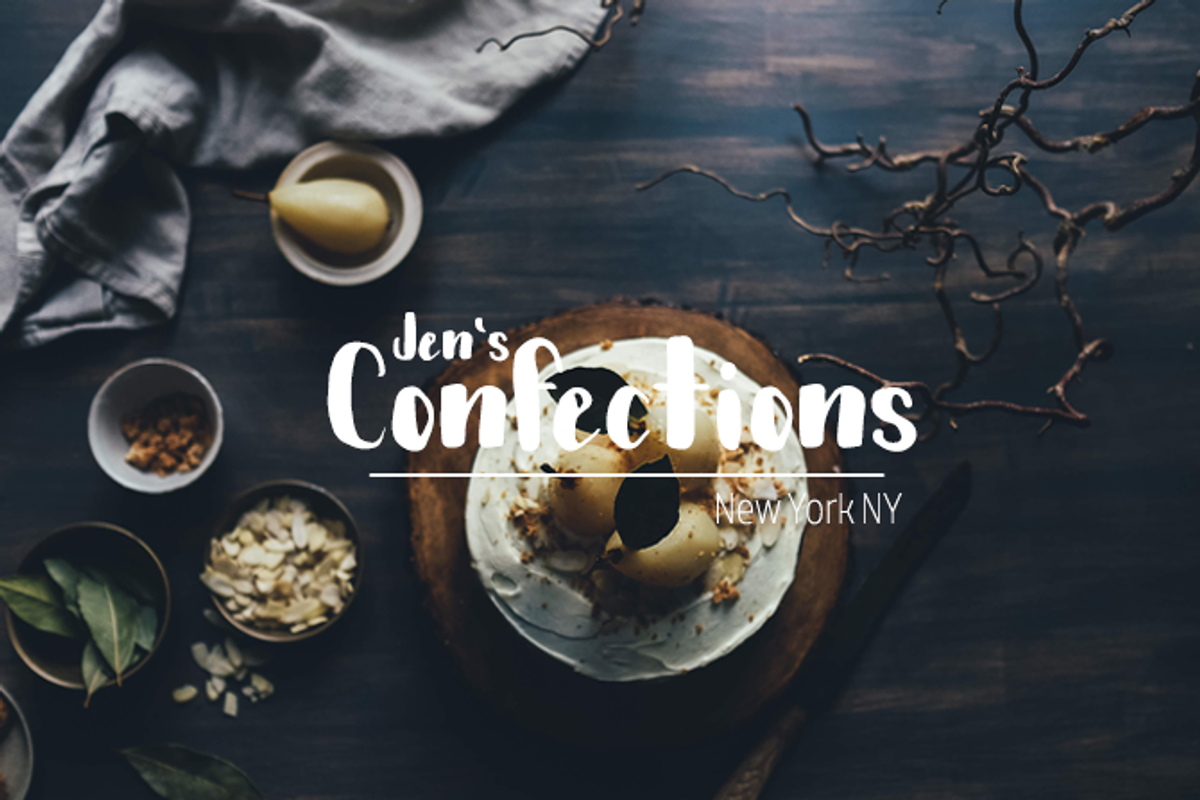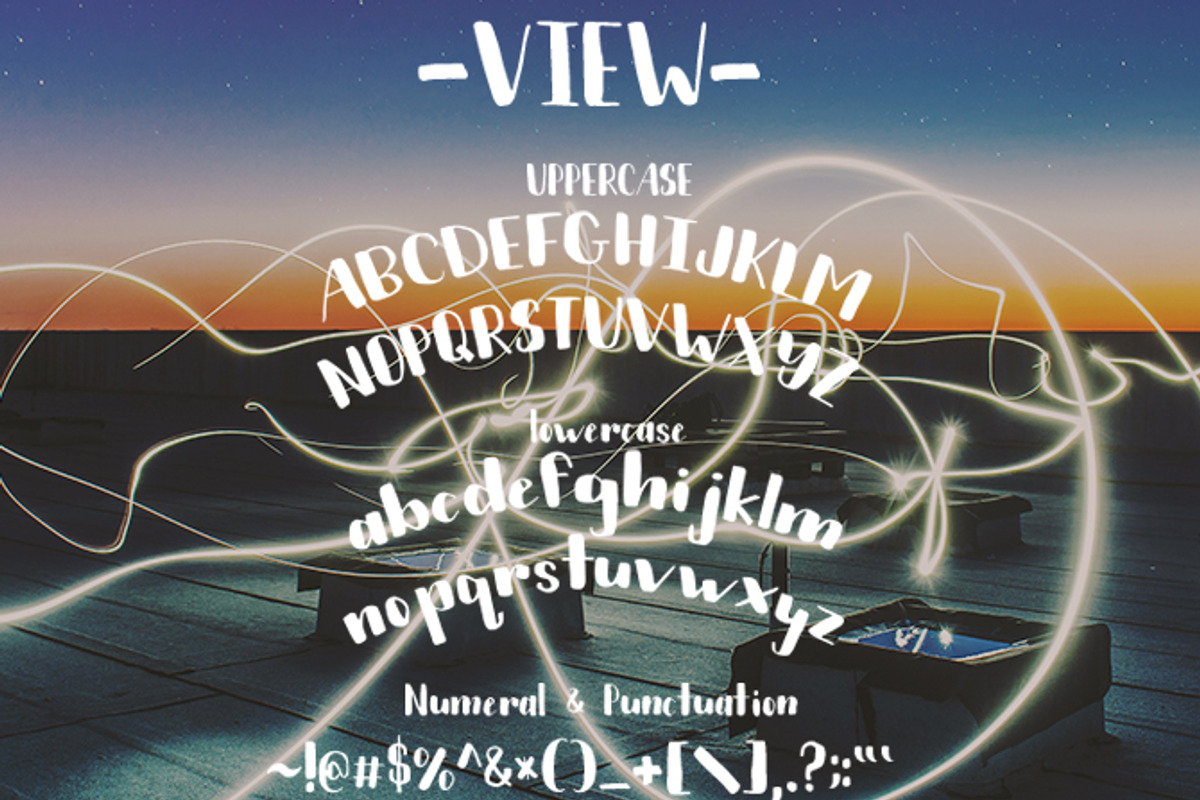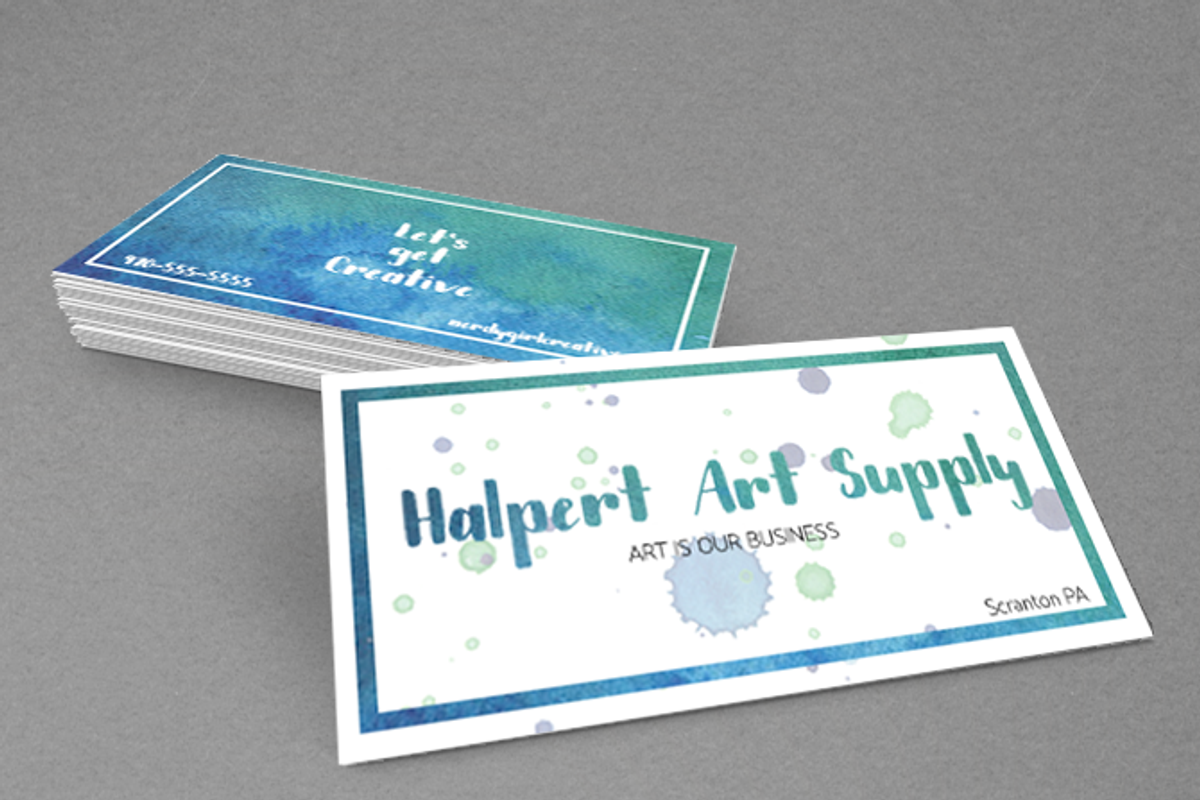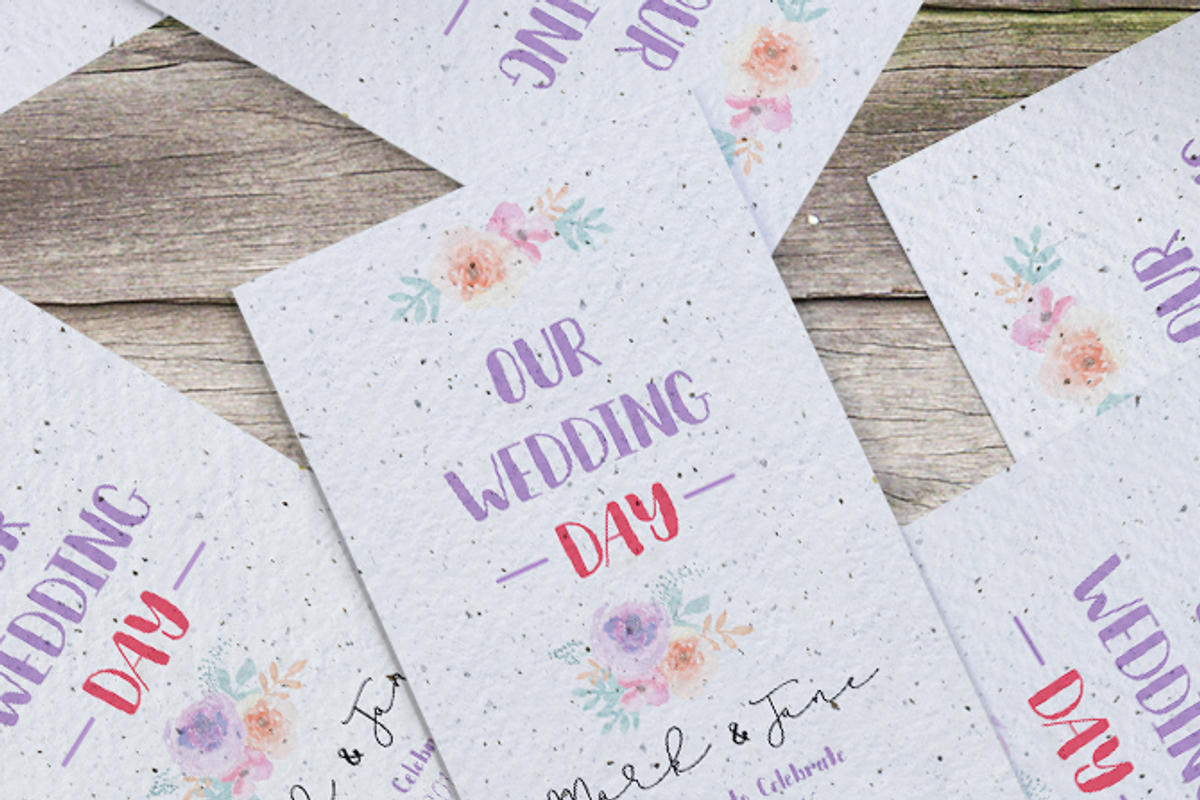
View - Handwritten Font
View - Handwritten Font by Nerdy Girl Creative is a font selected for branding, posters, packaging, typography.
Why View - Handwritten Font is worth a look
View - Handwritten Font by Nerdy Girl Creative fits naturally into Branding, posters, packaging, typography.